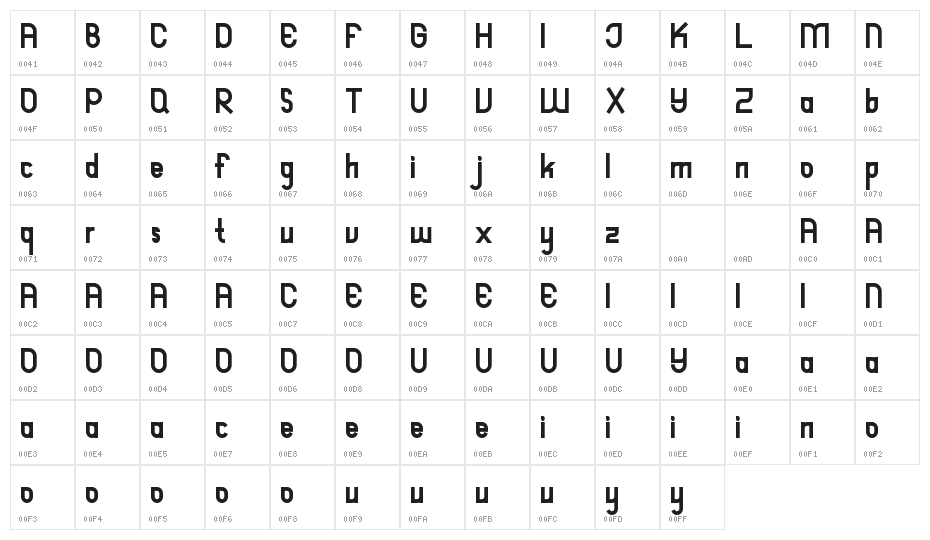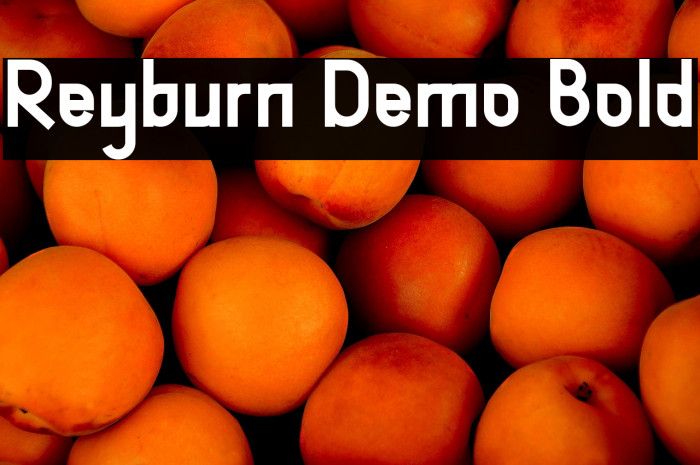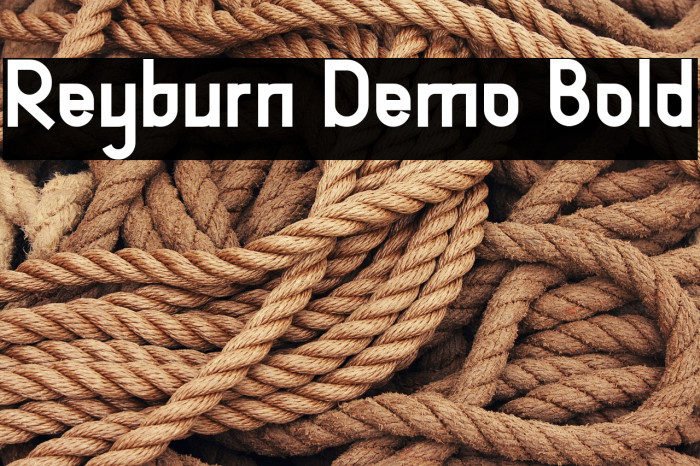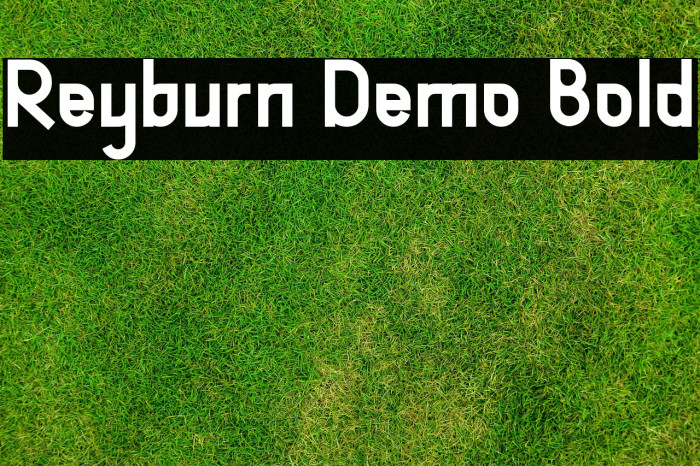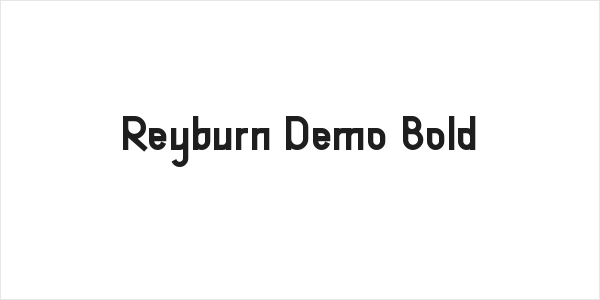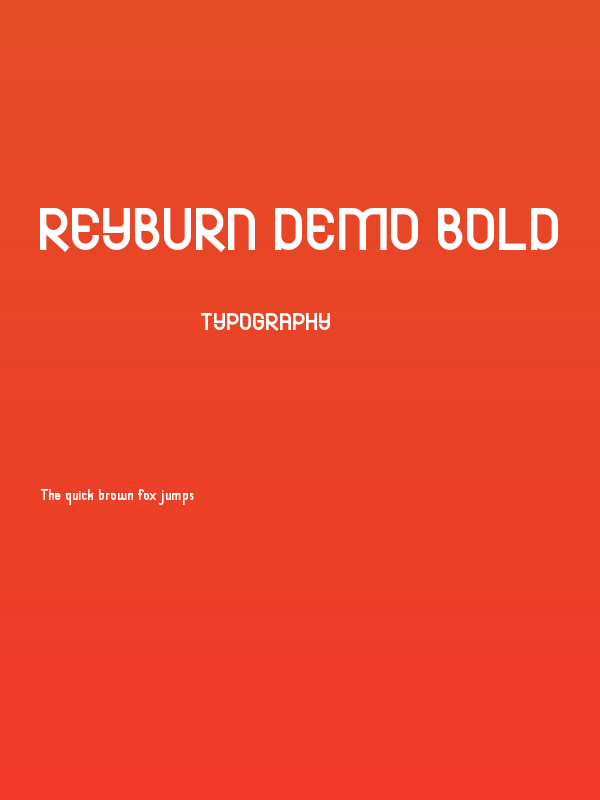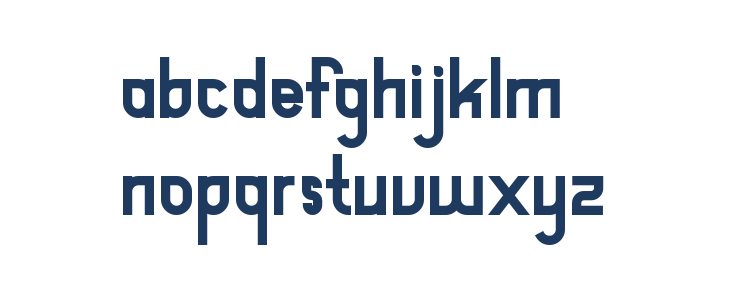
Reyburn Demo Bold Font
Reyburn Demo Bold Description
This font features a bold and geometric design with a modern aesthetic. The characters are constructed with clean, straight lines and sharp angles, giving it a futuristic and structured appearance. The uppercase letters have a uniform height, while the lowercase letters maintain a consistent baseline, enhancing readability. The font's bold weight and distinct shapes make it stand out, suitable for attention-grabbing designs. The spacing between characters is tight, which contributes to its compact and cohesive look. This font is ideal for projects that require a strong visual impact.